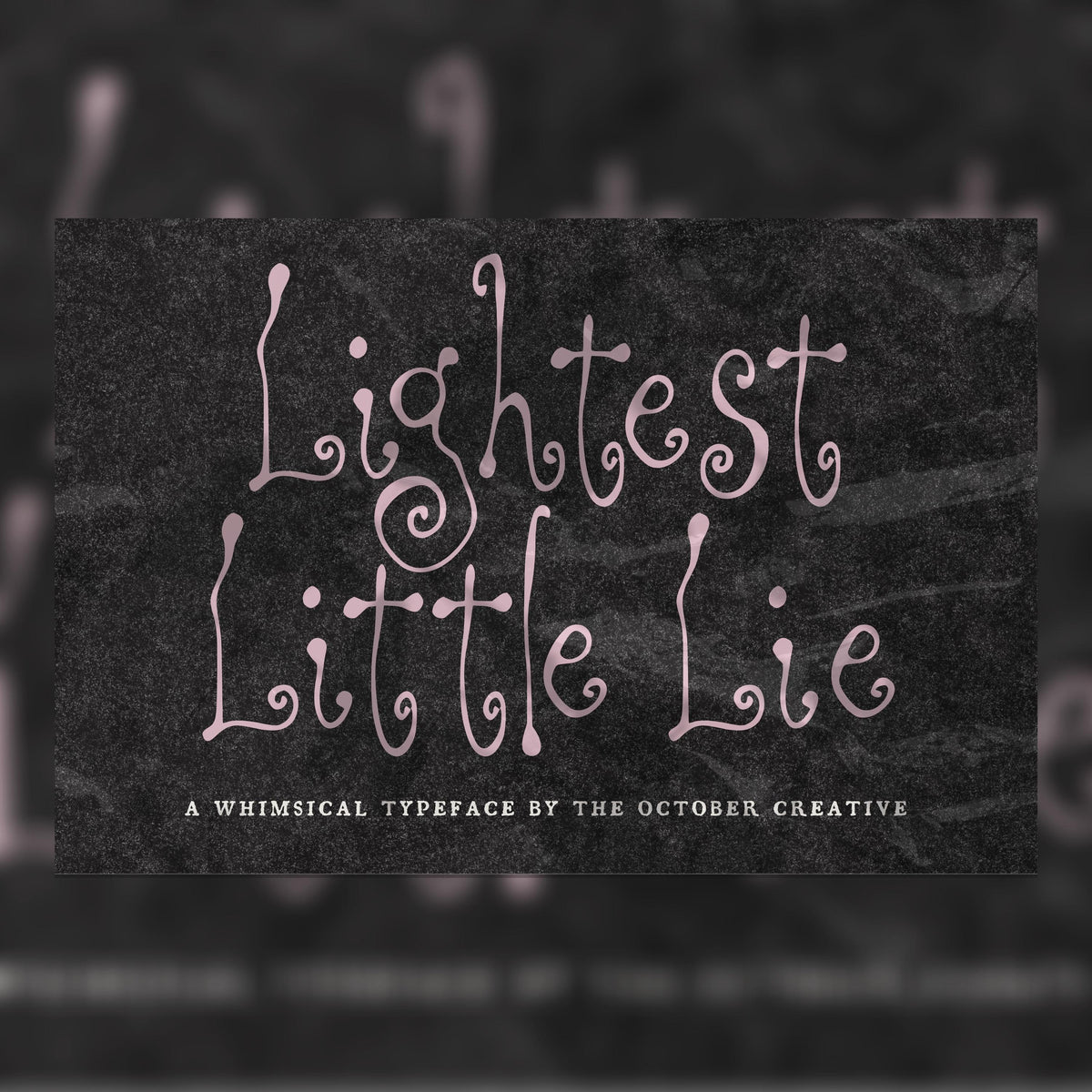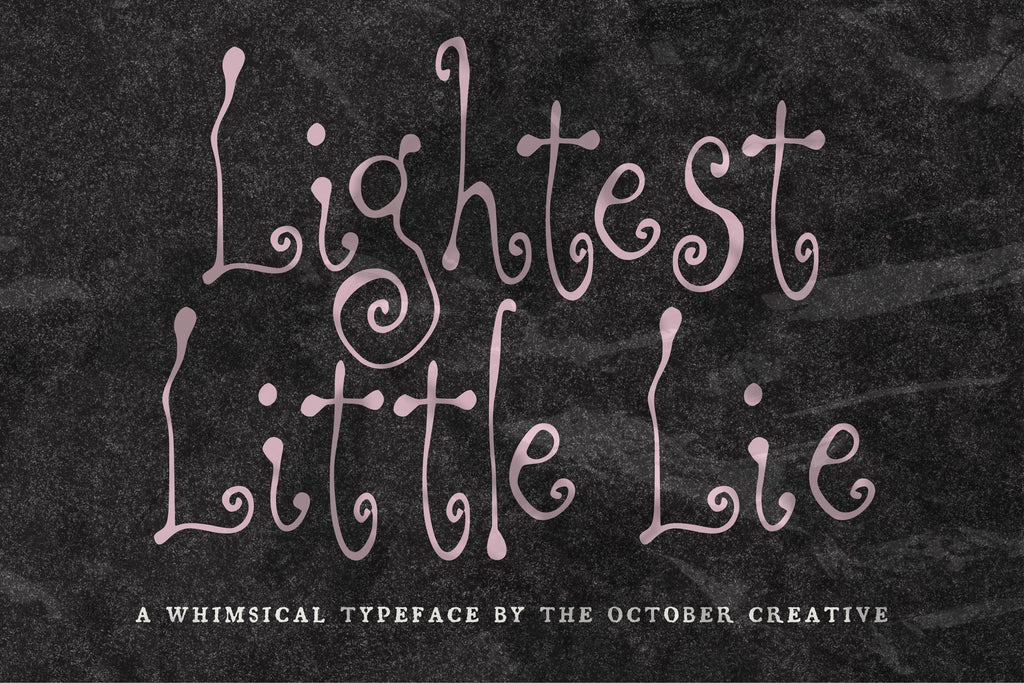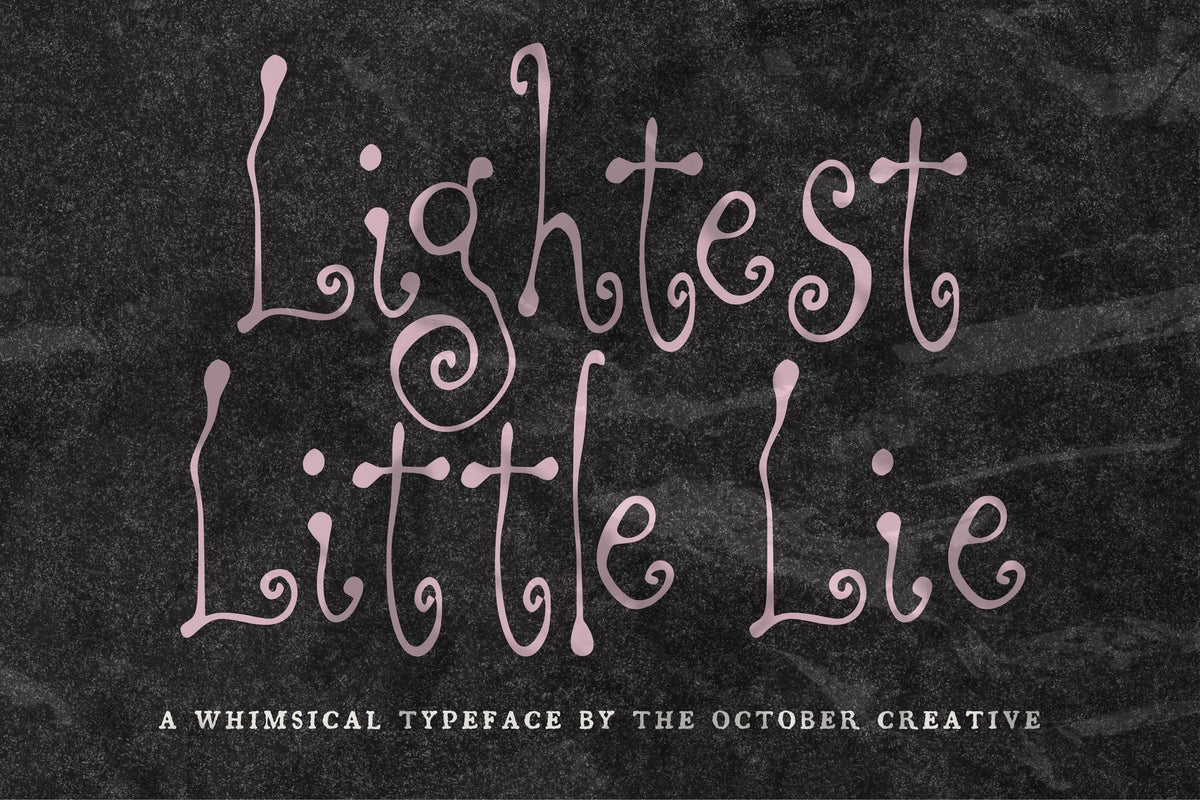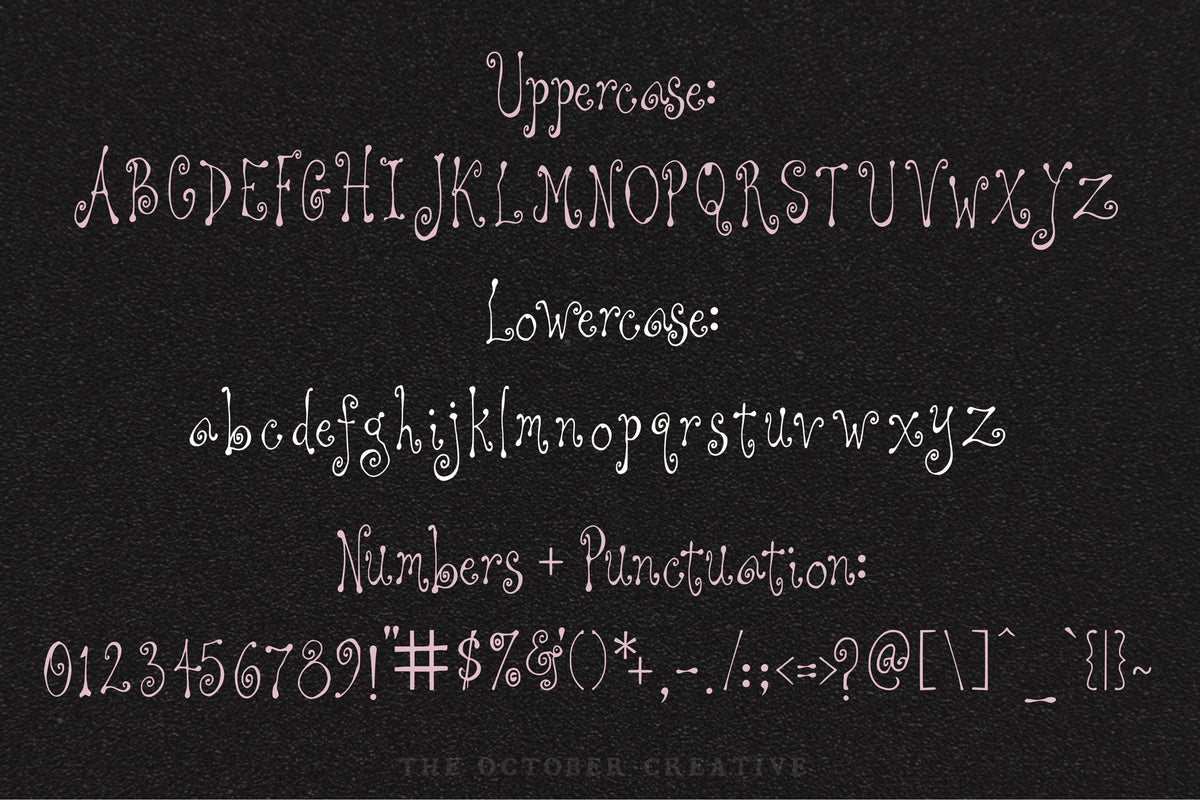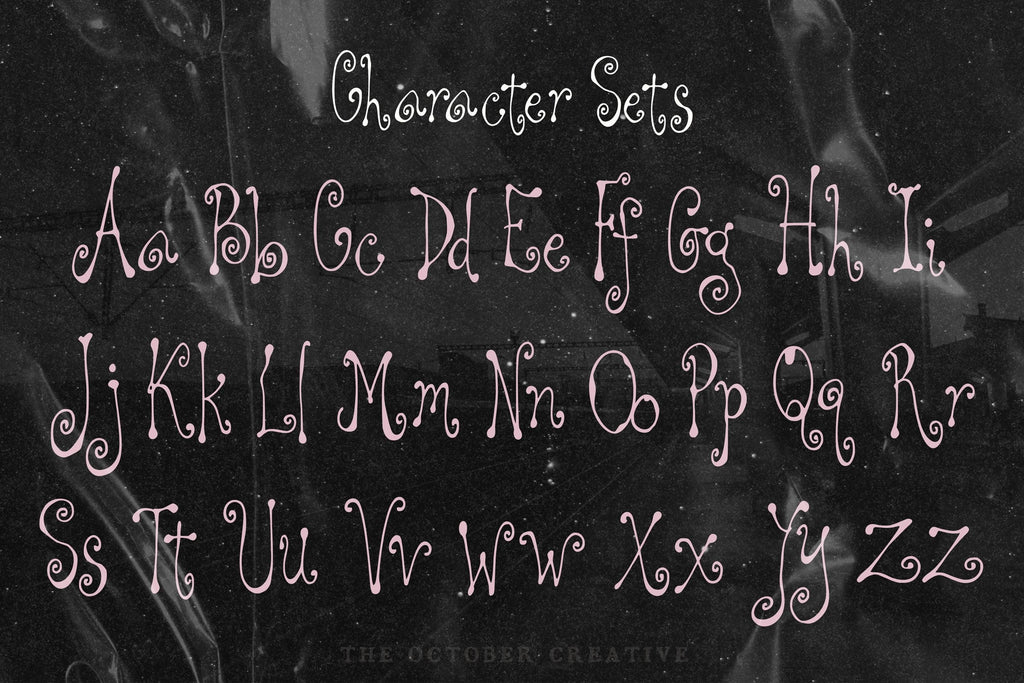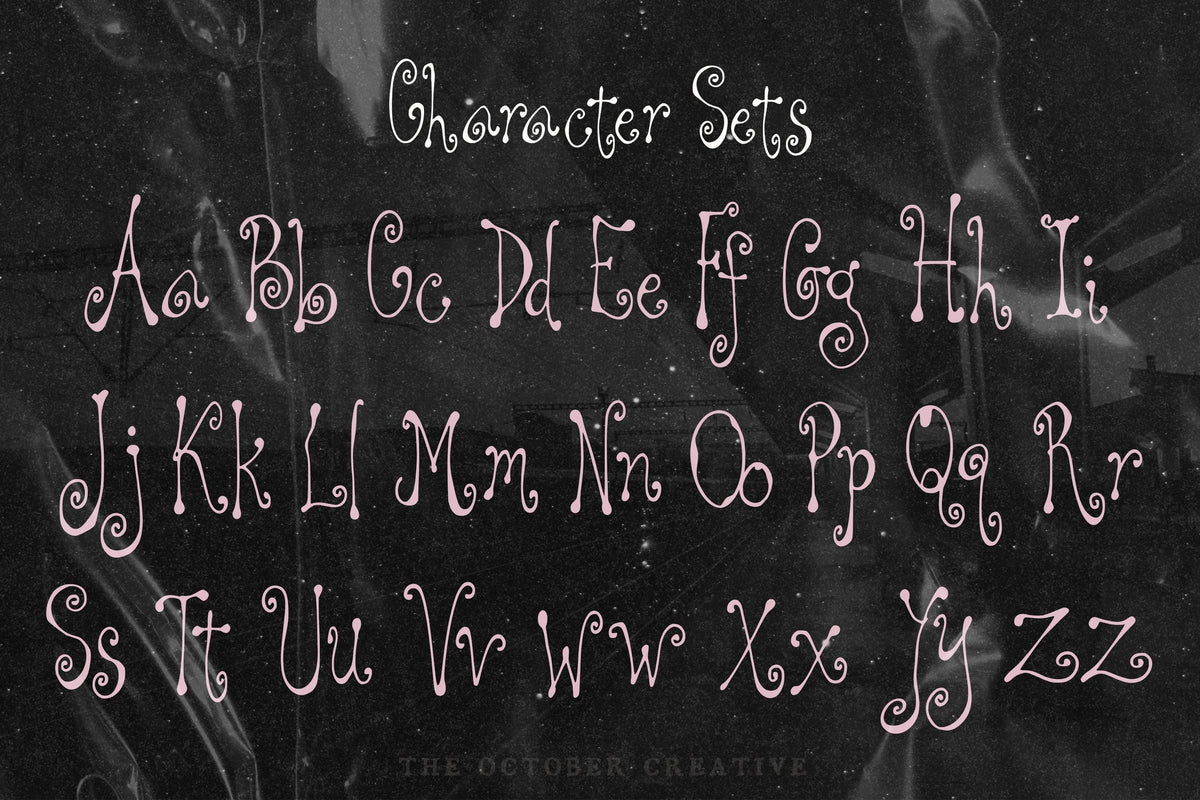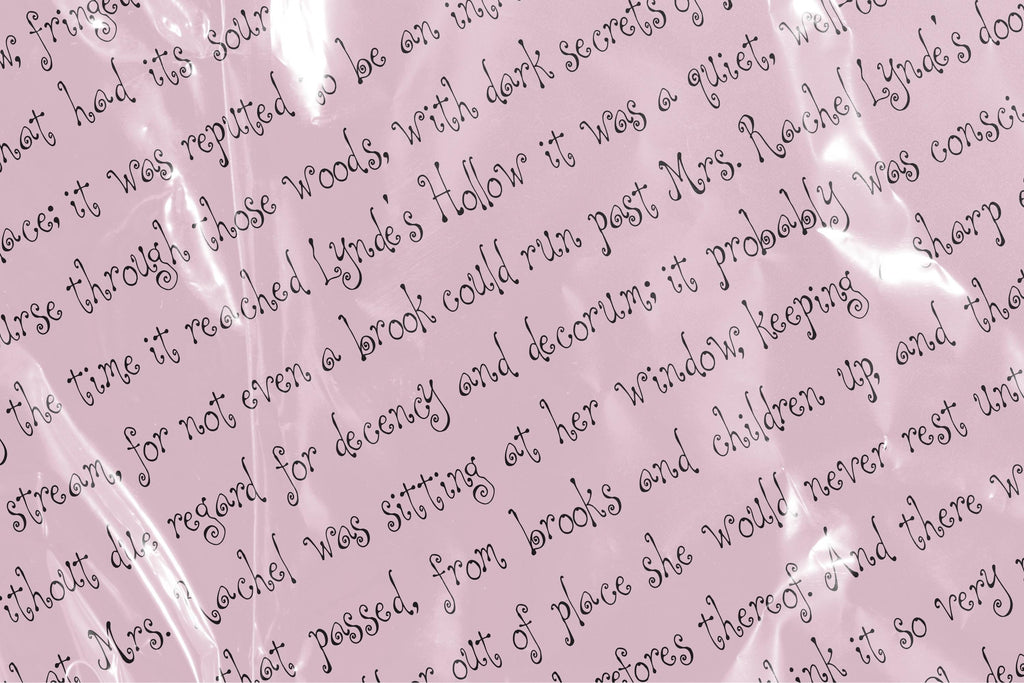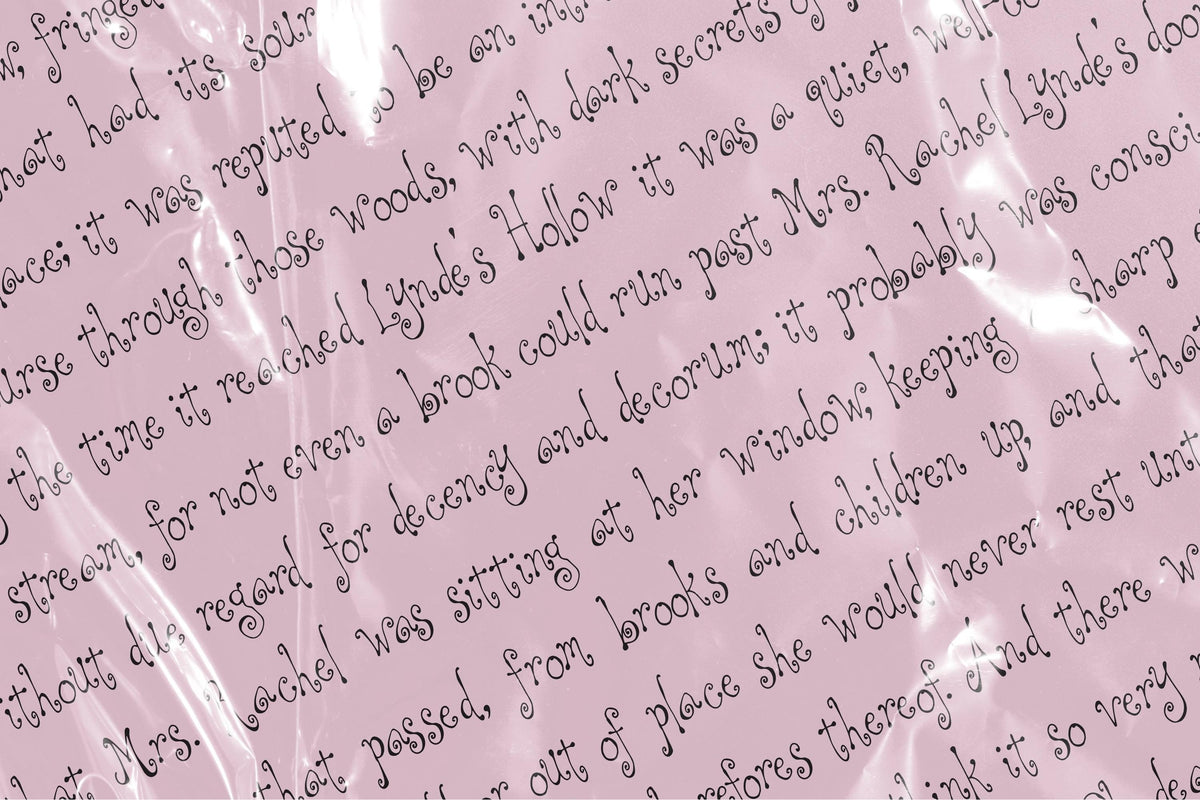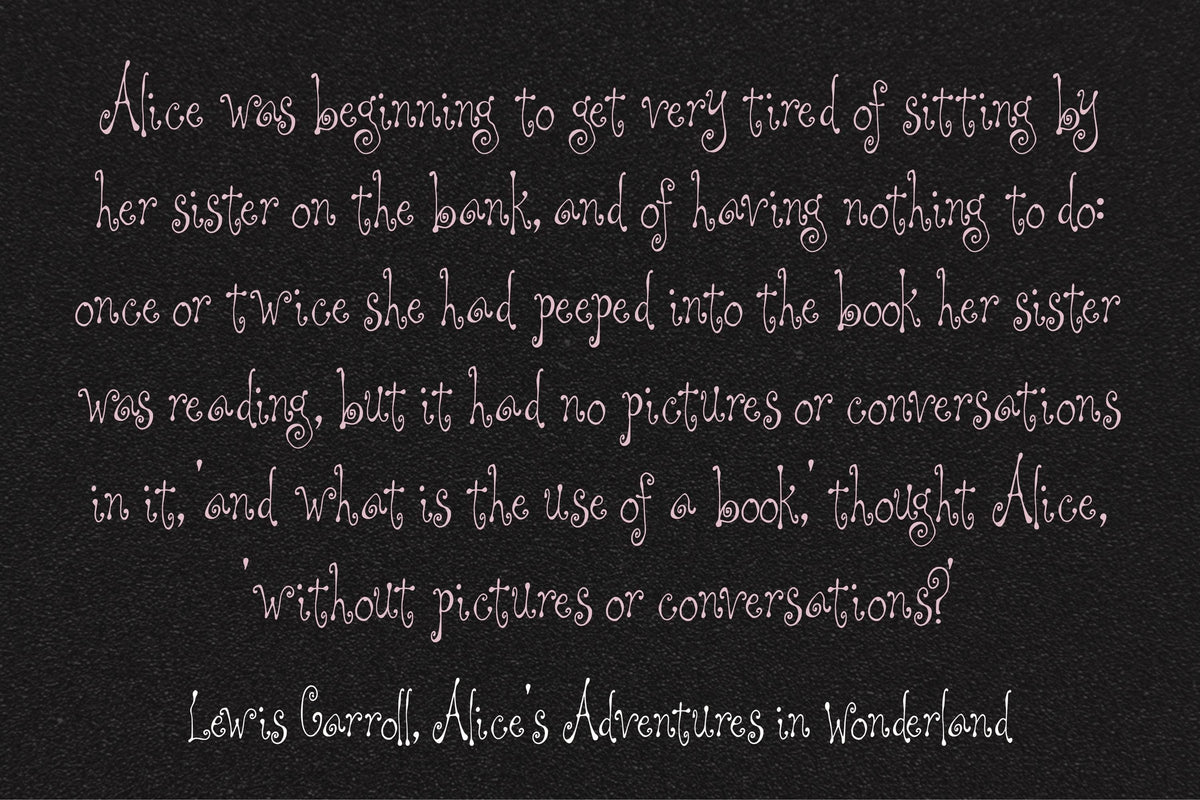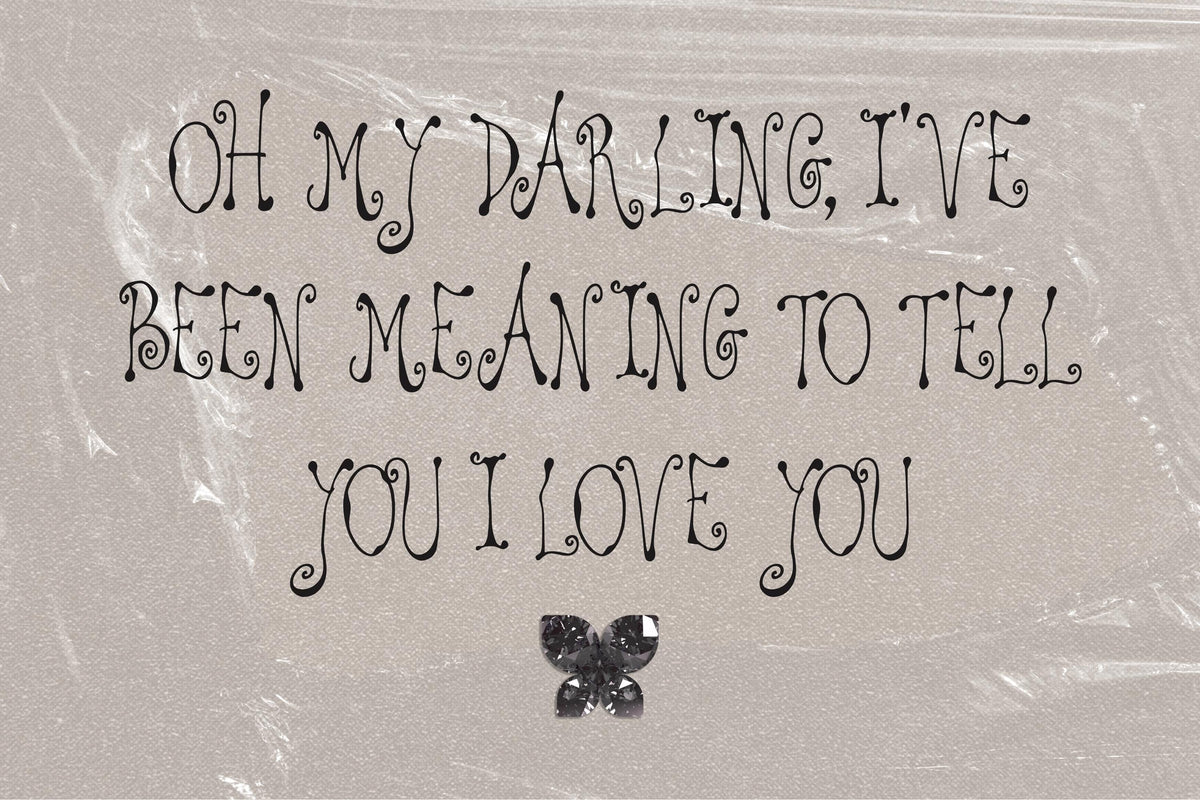
Lightest Little Lie Font
Lightest Little Lie adds tiny spirals to delicate letters for just enough sweetness on a journal page. Try it on stickers, gift tags, and little notes tucked into packages, where the curls can make a simple thank-you feel special.